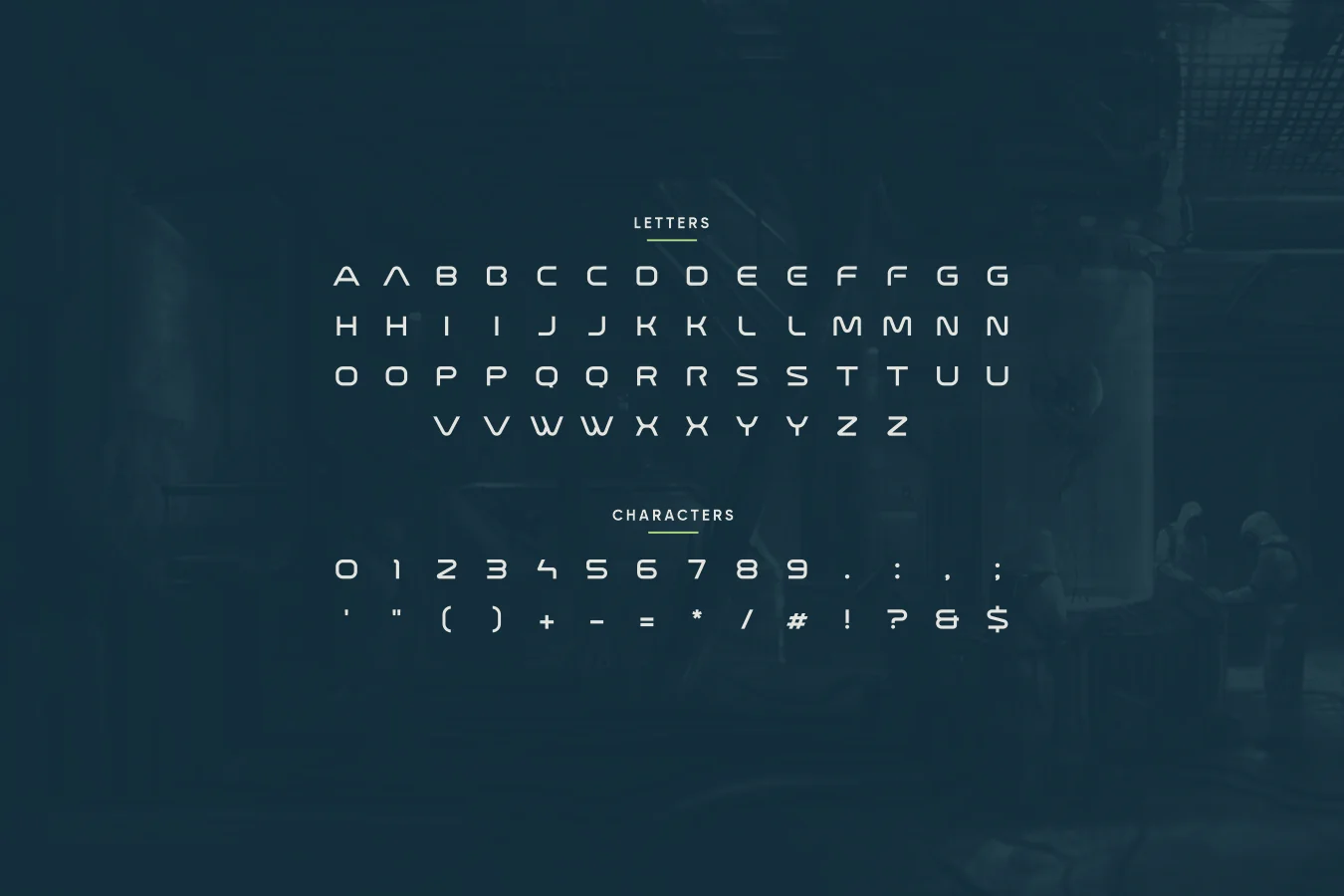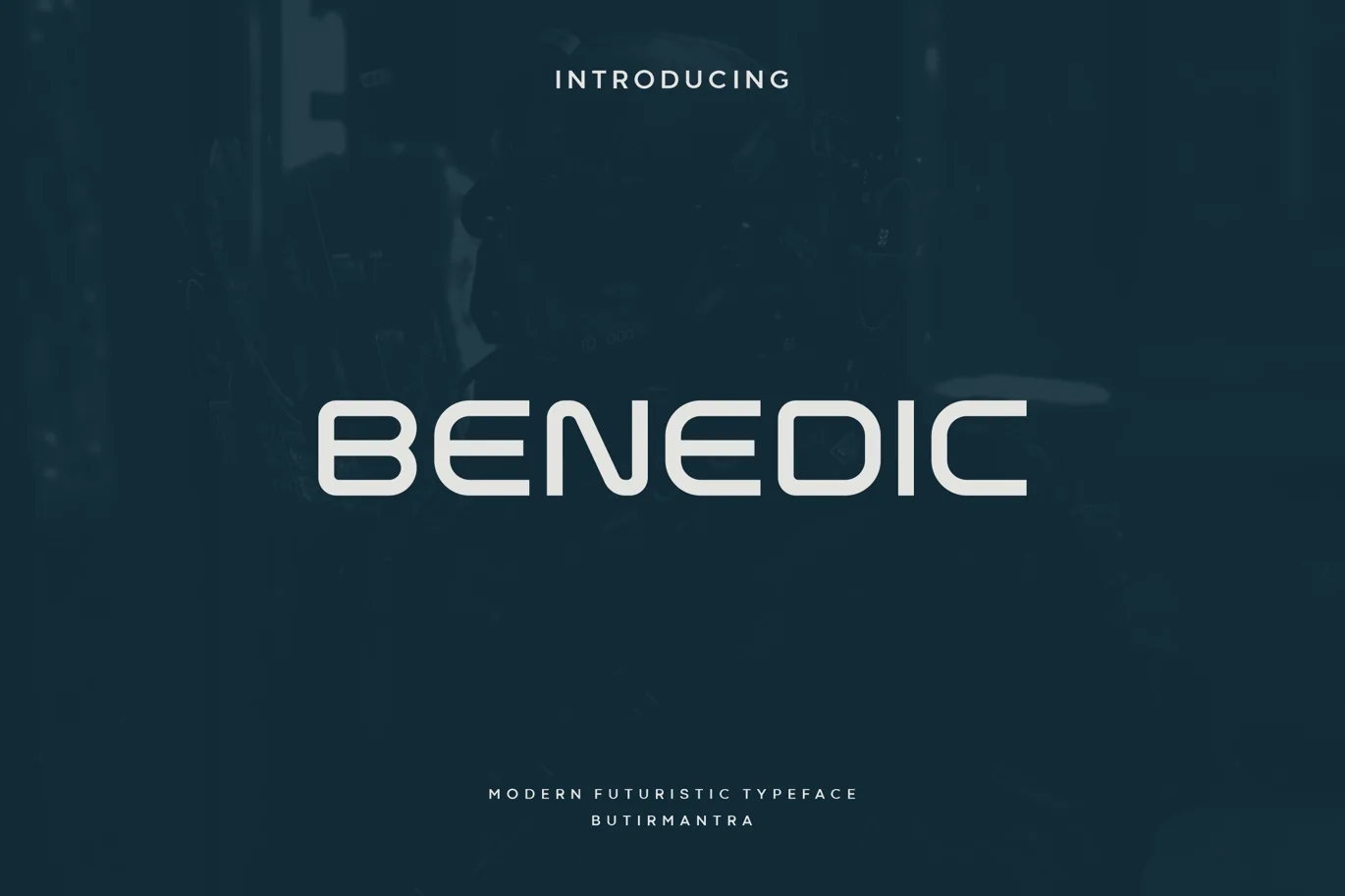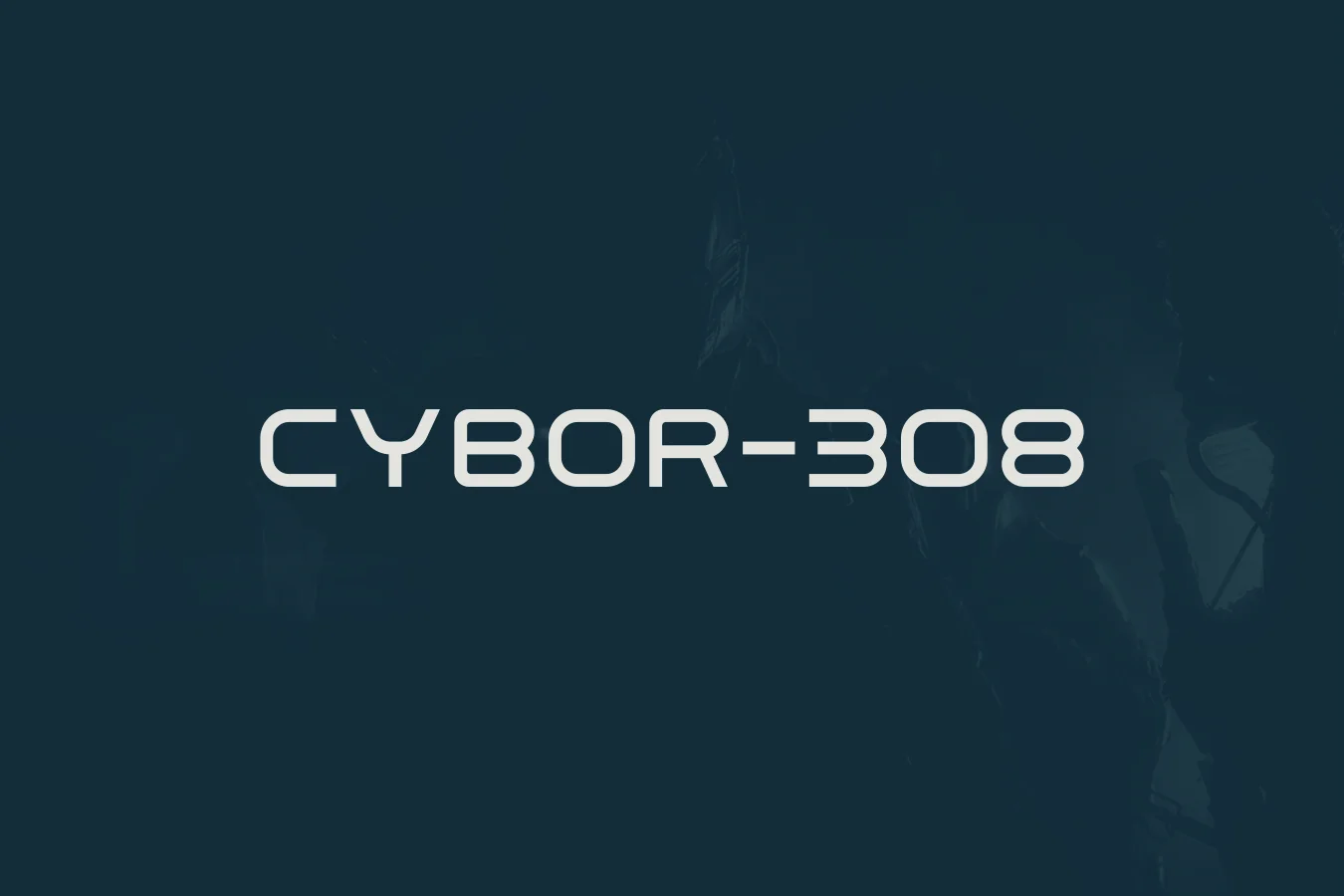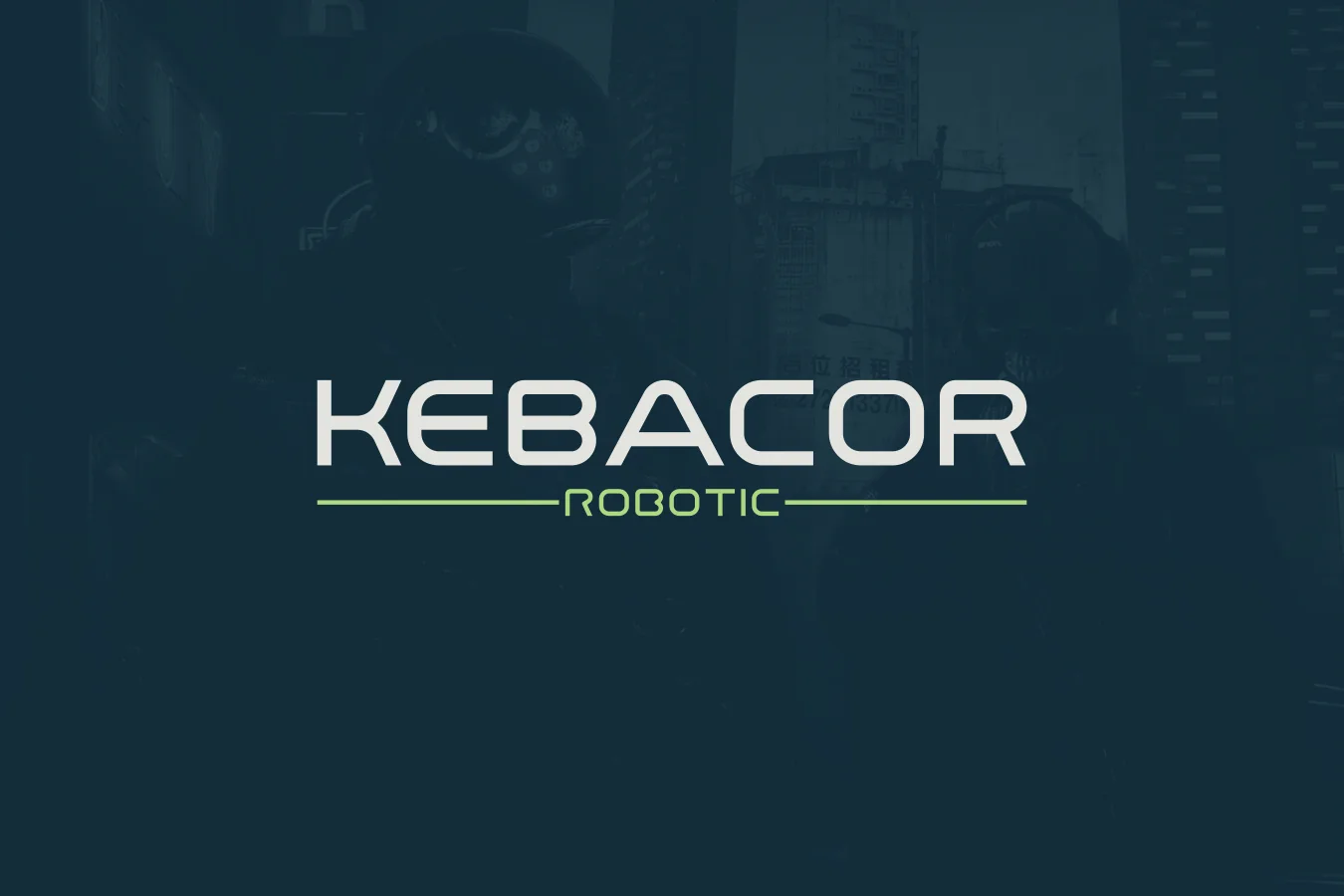
Benedic – Futuristic Font
Benedic is an all-caps font with sci-fi feel, a clean and modern font. Benedic the smooth and clean execution makes this font look sleek and elegant which is perfect for futuristic branding designs, and will be very suitable for logo, headline, poster, etc. It can easily be matched to an incredibly large set of projects, so add it to your creative ideas and notice how it makes them stand out!